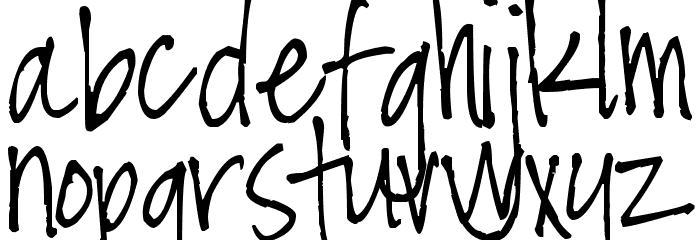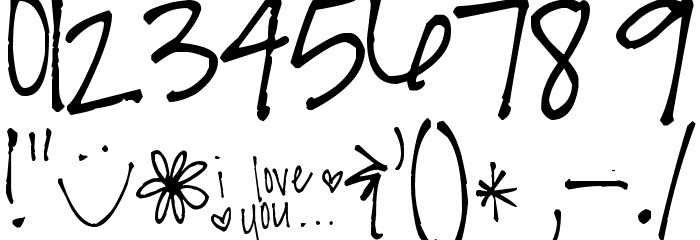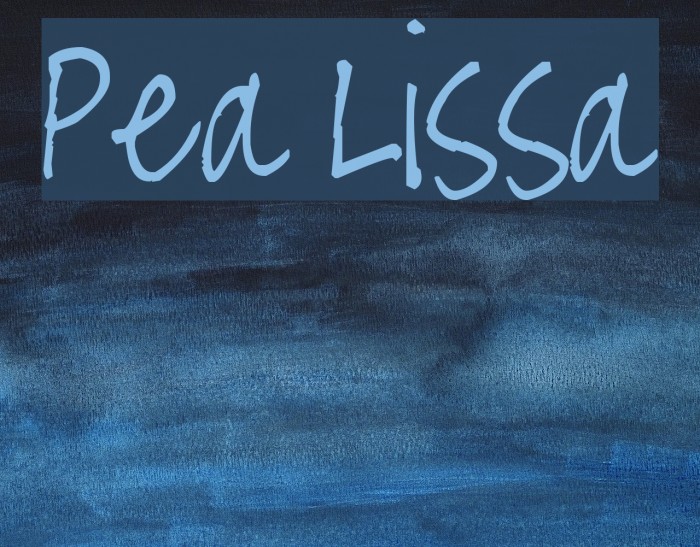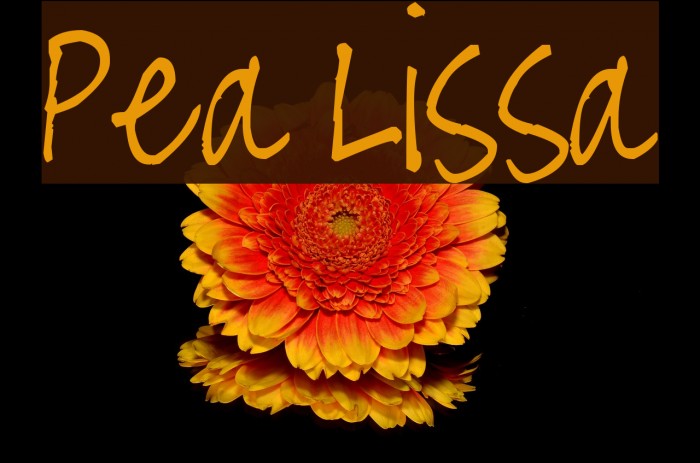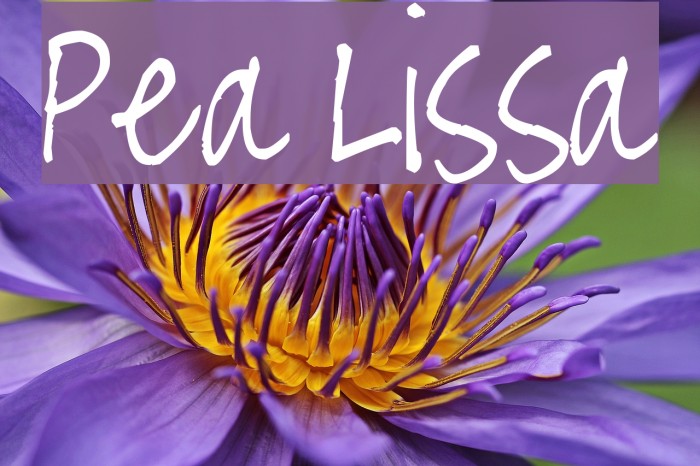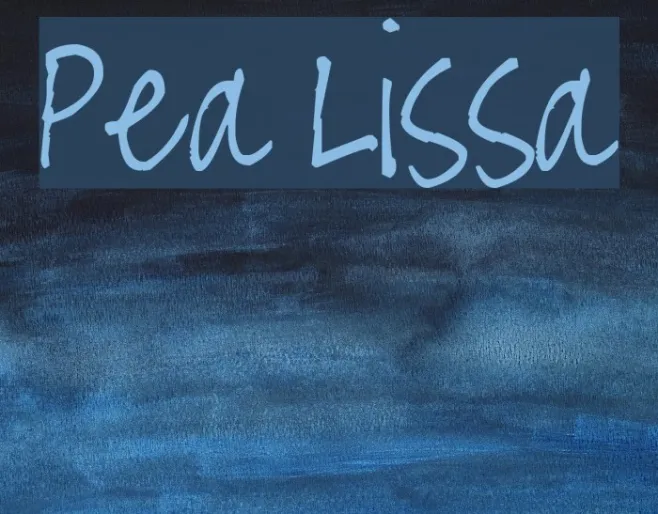
Pea Lissa Font
This font exudes a playful and casual handwritten style, characterized by its irregular strokes and a personal touch that mimics natural handwriting. The letters are slightly slanted, with varying stroke widths that add a dynamic and lively feel. The uppercase and lowercase letters maintain a consistent style, with rounded forms and a spontaneous appearance. Numbers and special characters follow the same informal aesthetic, making the font suitable for projects that require a personal or whimsical touch. The overall design is approachable and friendly, perfect for conveying warmth and creativity.
A playful, casual handwritten font with irregular strokes and a personal touch.
- Proposed Projects: Ideal for greeting cards, personal notes, informal invitations, and creative projects that require a personal touch.
- Overall Style: Casual, Playful
- Use Case: Logos, Greeting cards, Personal notes